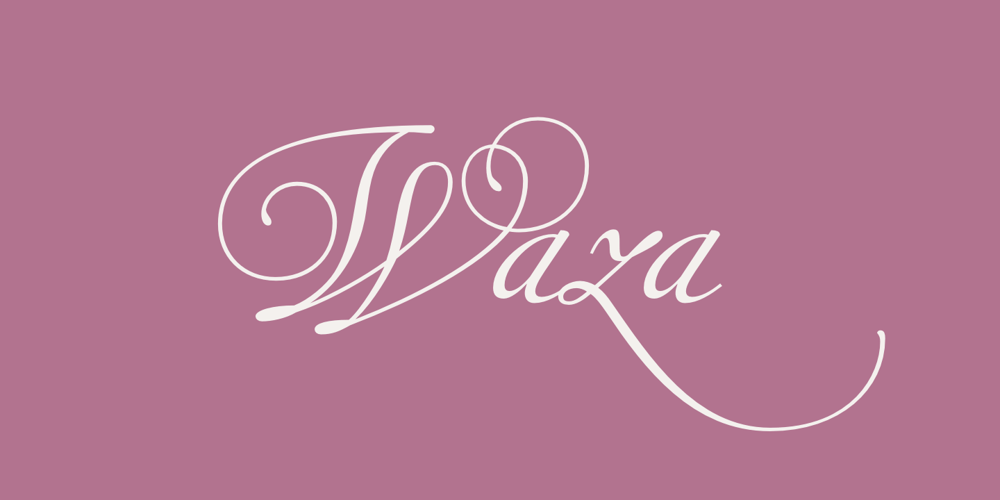
Waza
Waza font
Waza Font Family was designed by Franciszek Otto and published by Linotype. Waza contains 1 styles and family package options. Reviving a handwriting style from centuries past is similar to playing antique musical instruments; the pleasure of communing with live music arranged centuries ago by brilliant composers is heightened by the use of authentic or reconstructed artifacts. A new revived” script from the Baroque epoch is the Waza typeface, developed by Polish designer Franciszek Otto. Waza is inspired by a Wilhelm Hondius (Hondt) etching. Hondius was a Dutch court engraver for the Polish king, Ladislaus IV of the Vasa dynasty. The decorative character of the script engraved in the etching is a display of Hondius’s calligraphic skill. The tangle of the flourishes in the capital letters, as well as the decorative lengthening of ascenders and descenders in the lowercase, contrast ideally with the rhythmic 30-degree slant of the design. Waza includes a set of alternative capital letters that have been deprived of ornaments; these allow the setting of proper Roman numerals, e.g., Ladislaus IV.”